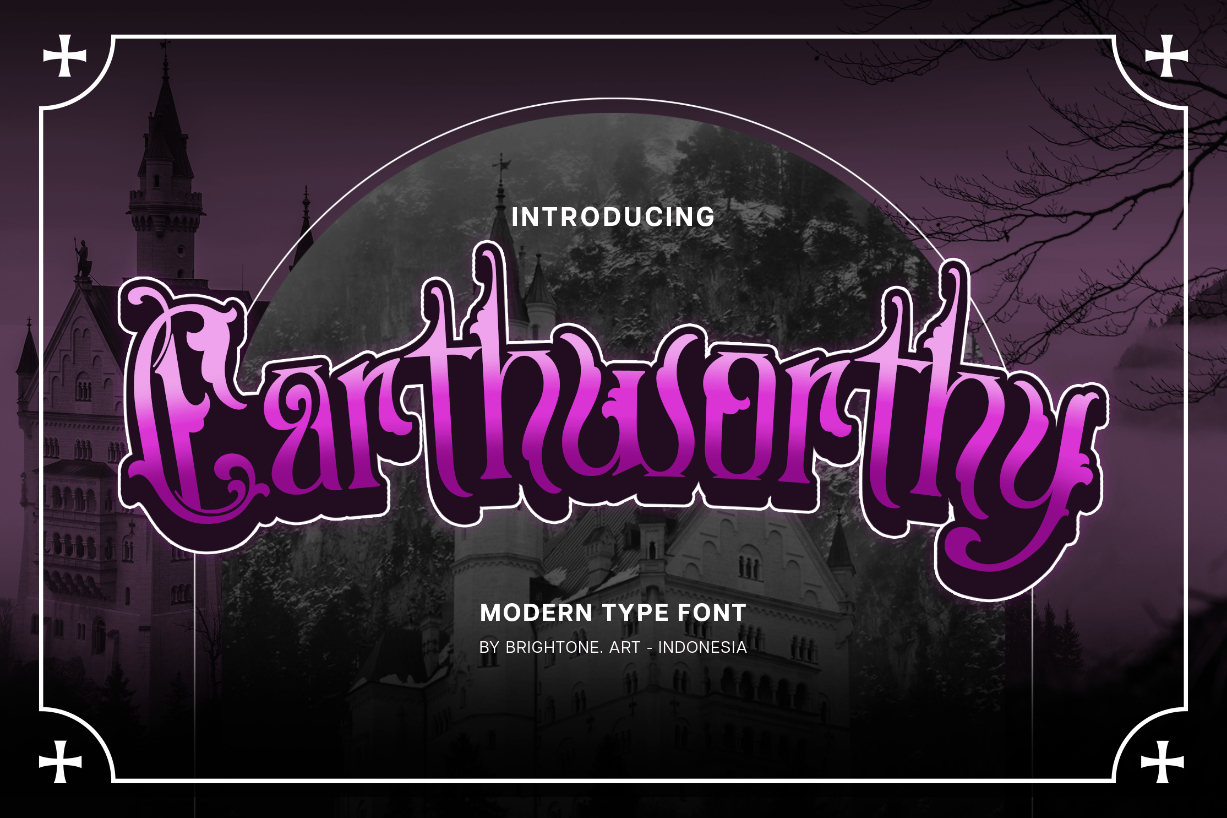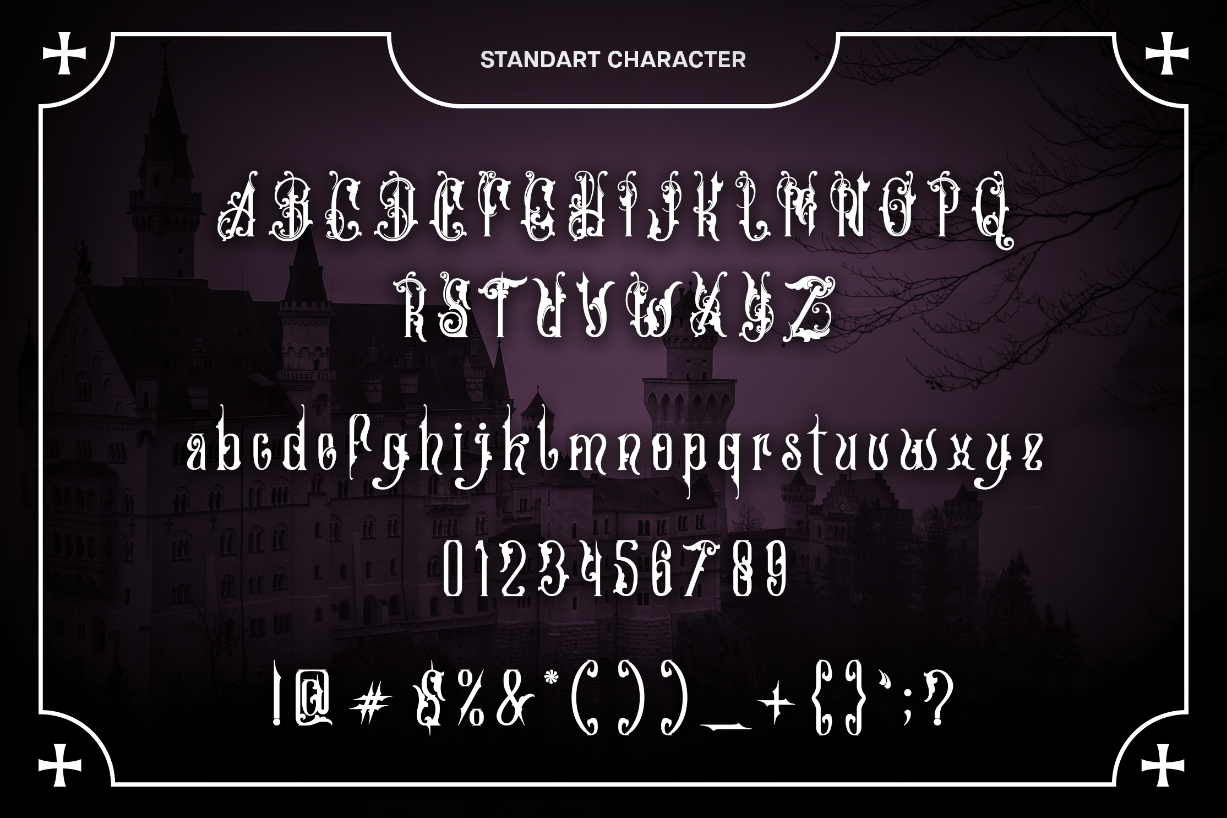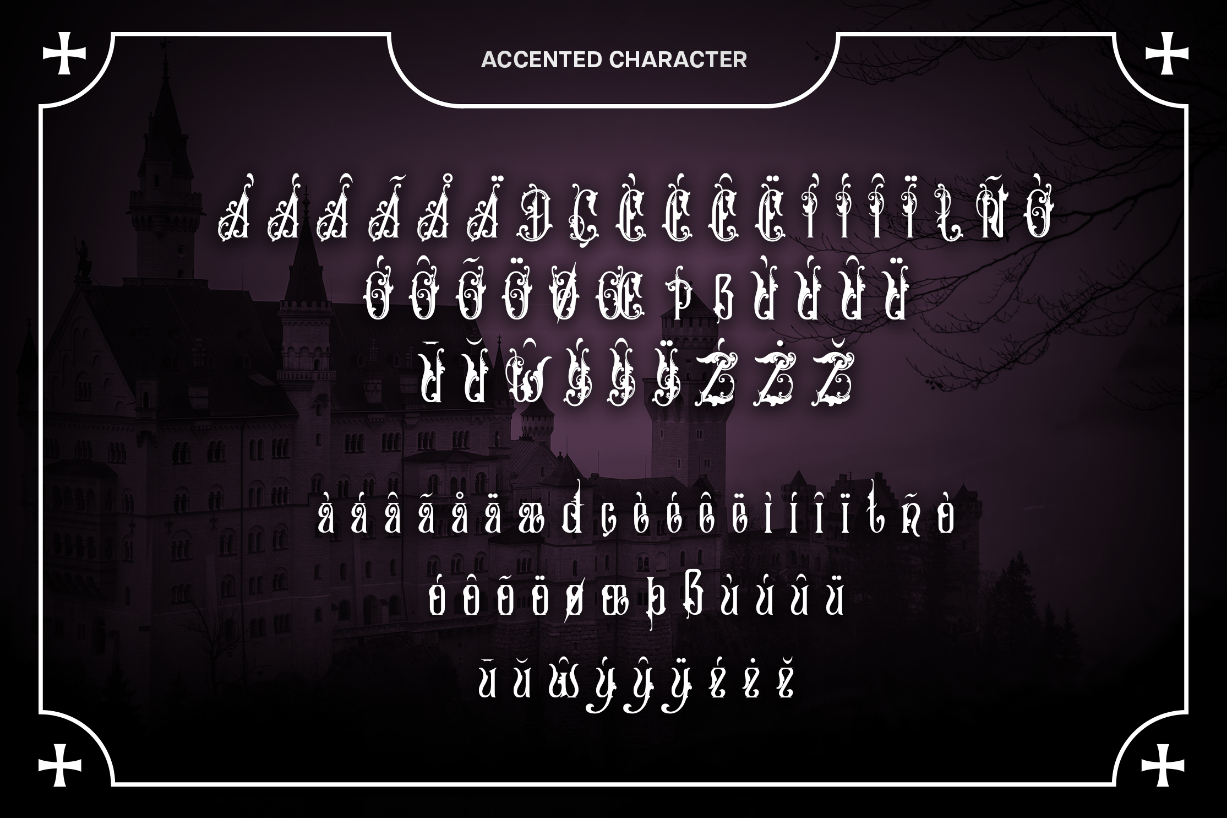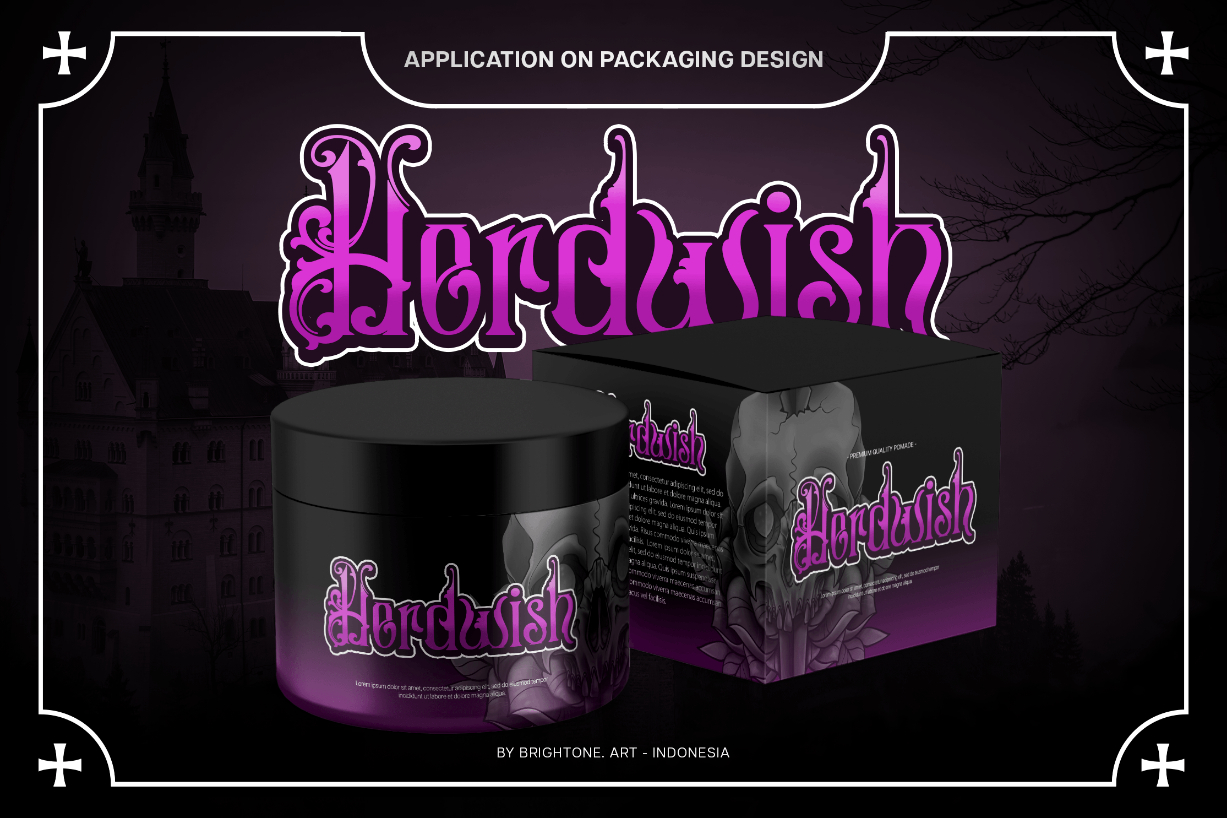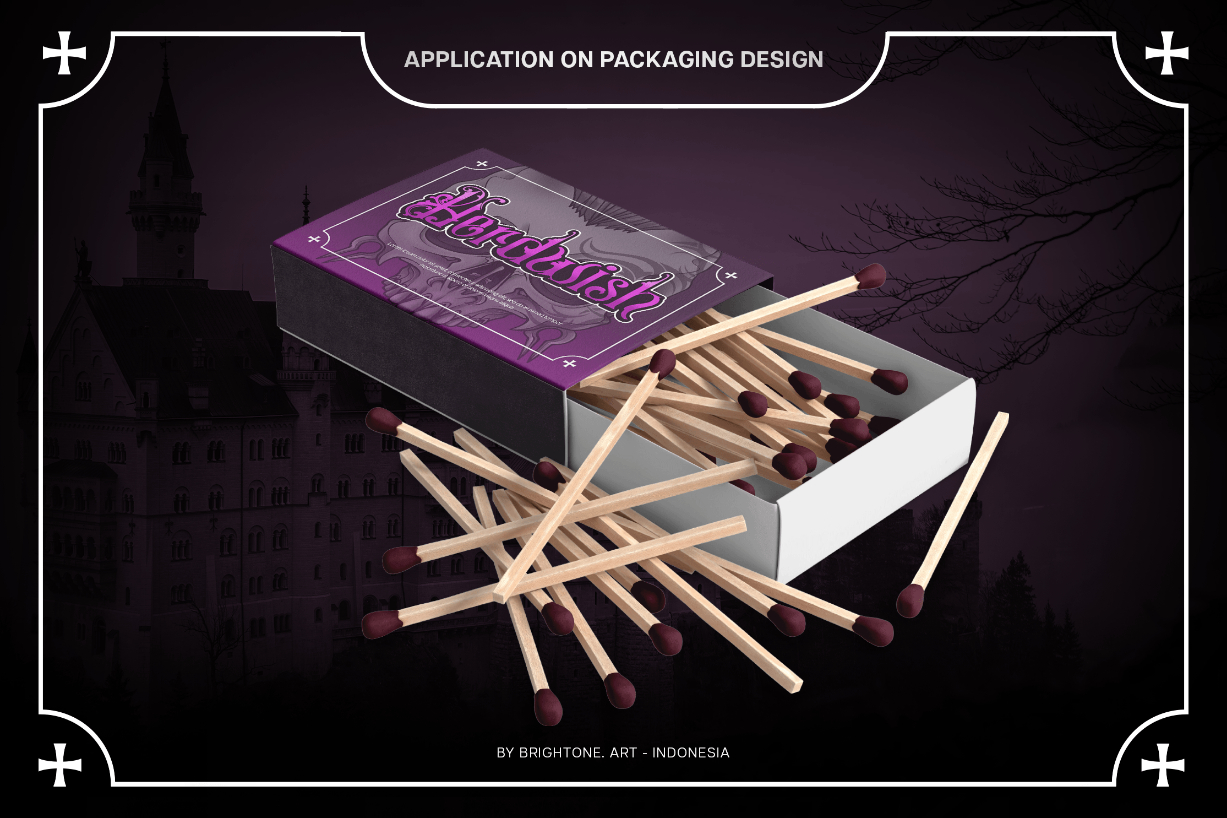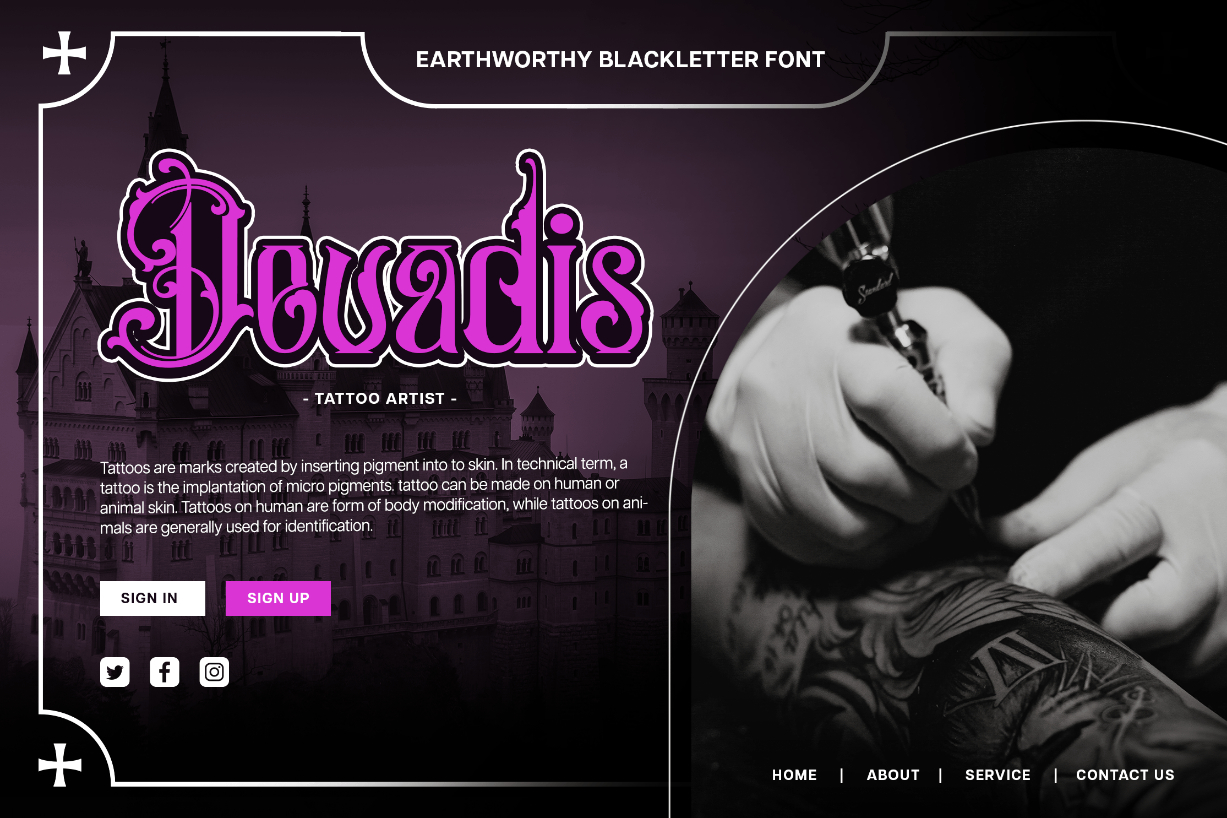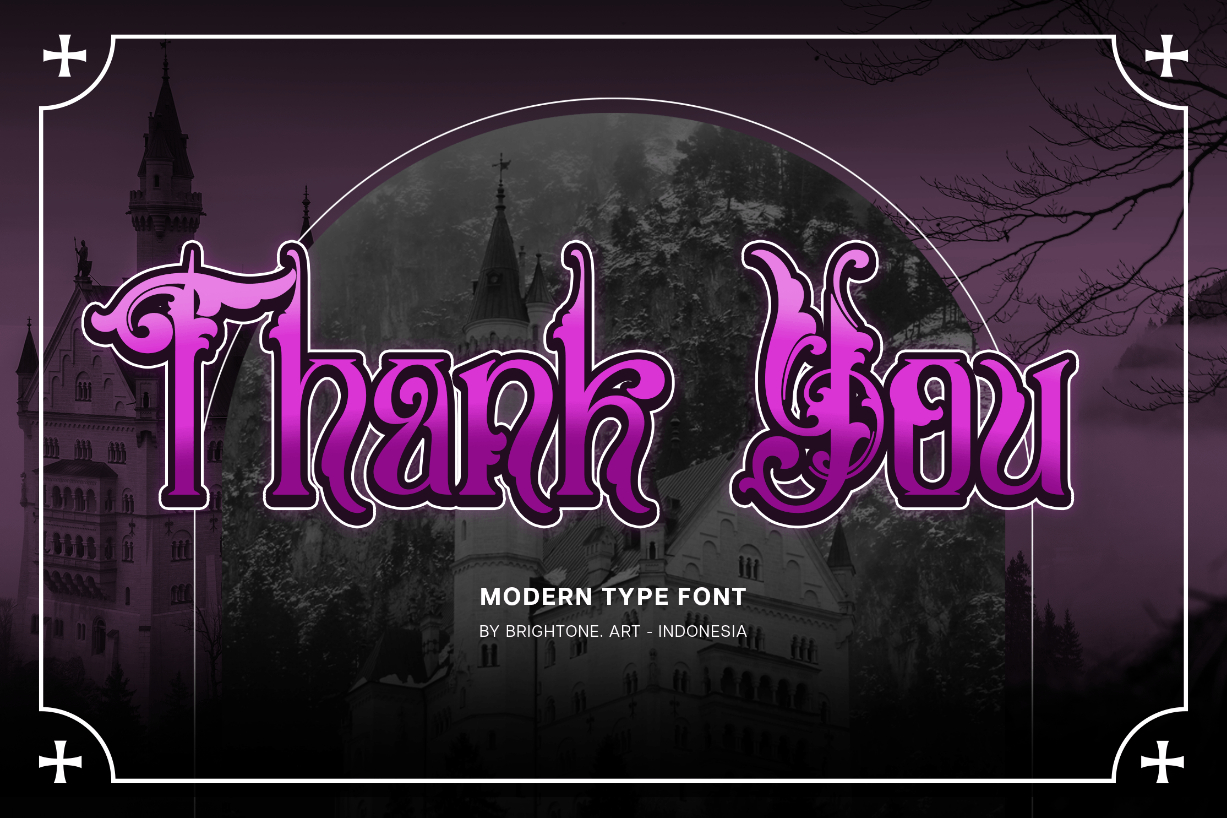
Earthworthy Font
About Earthworthy Font
Earthworthy is is a modern blackletter font with a handcrafted style.
This stylish modern typeface is great for your logo lettering, labels, packaging, stickers, branding projects, and other creative ideas.